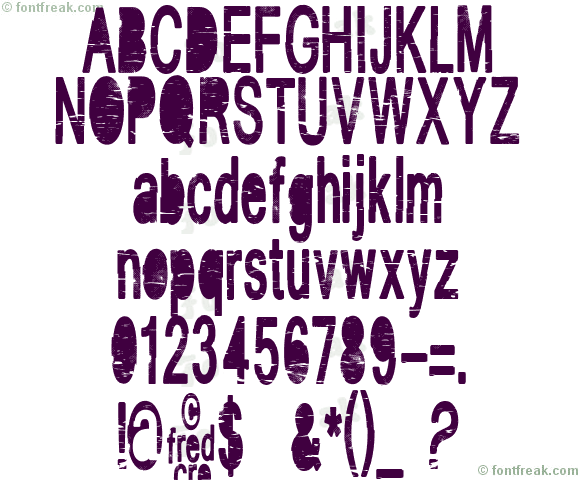
VINTAGE_CRE
The VINTAGE_CRE font by FRED CRE is a striking display typeface that embodies a retro aesthetic, perfect for those seeking a nostalgic touch in their designs. This unique font features a bold, slightly distressed appearance, giving it an authentic vintage vibe. The stroke weight is consistent, while the contrast is subtle, creating a harmonious balance that enhances legibility. Its unique spacing allows for versatility in various applications, making it an ideal choice for both headlines and body text.
One of the standout features of the VINTAGE_CRE font is its decorative elements, which evoke a sense of charm and personality. This font is particularly well-suited for a range of creative projects, including wedding invitations that call for a hint of elegance, movie posters where bold visuals are essential, and restaurant menus that aim to create an inviting atmosphere. Additionally, it can be effectively used in branding for artisanal products, capturing the essence of handcrafted quality that appeals to discerning consumers.
The target audience for the VINTAGE_CRE font includes graphic designers looking for a distinctive typeface that can elevate their projects, small business owners who want to convey a sense of authenticity and uniqueness, and content creators aiming to leave a lasting impression on their audiences.
What sets the VINTAGE_CRE font apart is its ability to blend nostalgia with modern design sensibilities. Its character and charm make it a standout choice for any project that seeks to evoke a sense of history and craftsmanship. For those interested in incorporating this eye-catching typeface into their work, the VINTAGE_CRE font free download makes it accessible for everyone, allowing creativity to flourish without constraints.